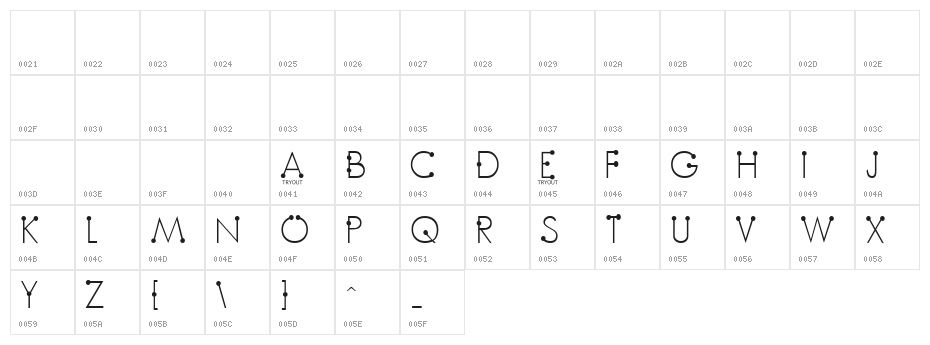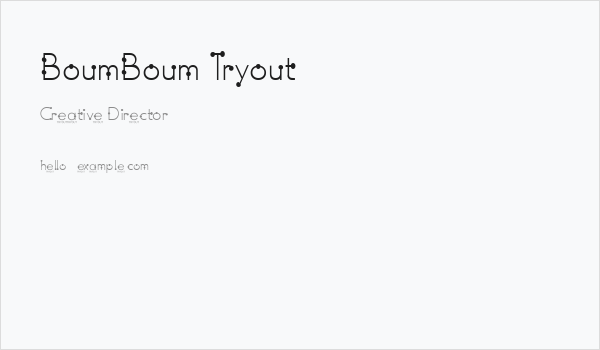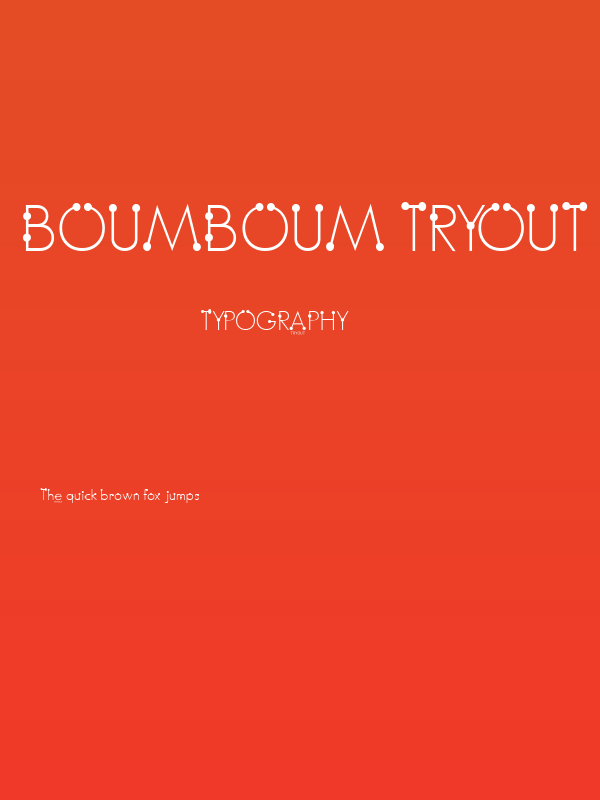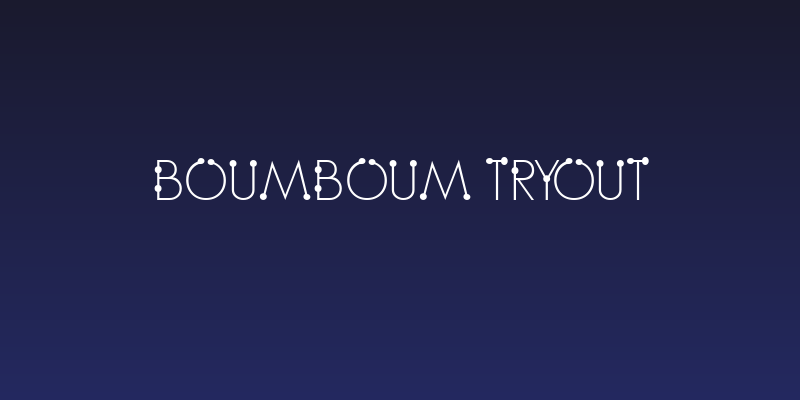
BoumBoum Tryout Font
BoumBoum Tryout Description
This font features a unique and playful design, characterized by circular dots at the ends of each stroke, creating a whimsical and modern appearance. The letters are constructed with clean, geometric lines, giving it a structured yet lively feel. The uppercase and lowercase letters maintain a consistent style, with the dots adding a decorative touch that enhances its visual appeal. The font's design is both eye-catching and functional, making it suitable for a variety of creative applications. Its distinct style is perfect for projects that require a fun and engaging typeface.
| Proposed Projects | Ideal for children's books, playful branding, creative posters, and modern web design. |